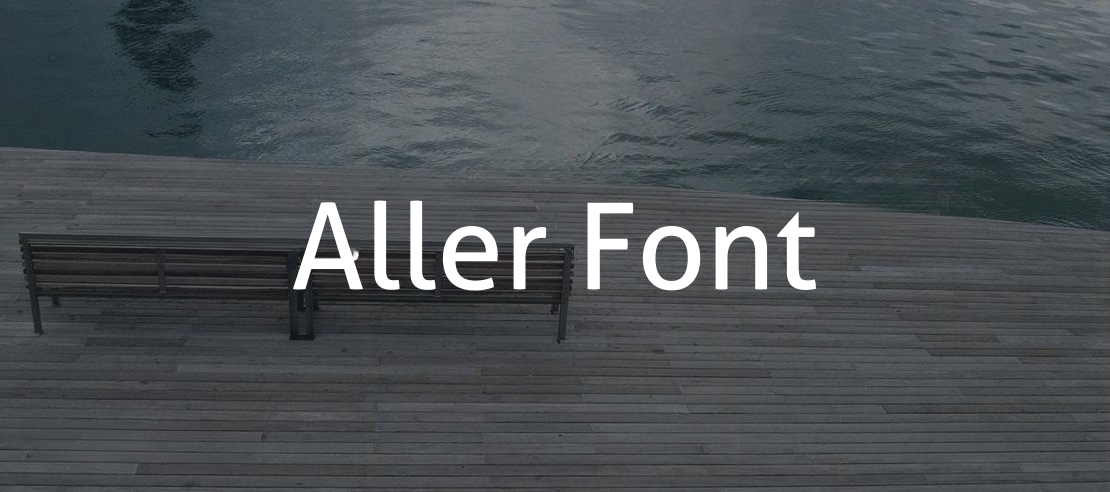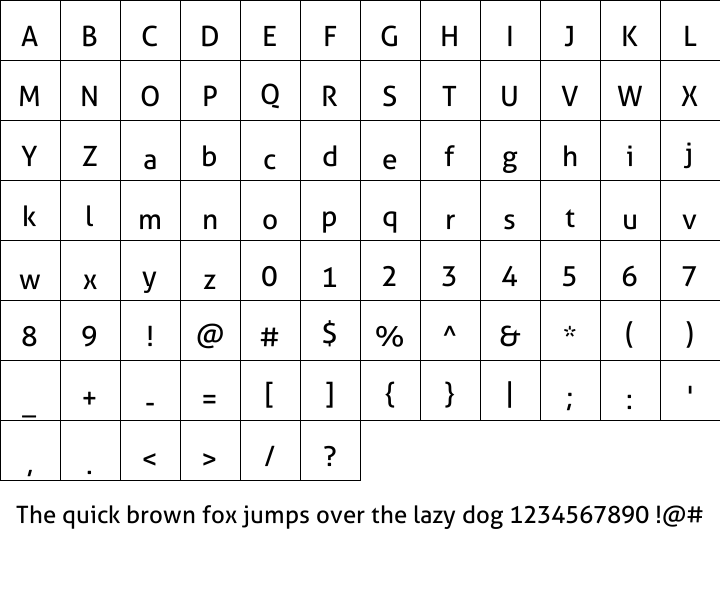
Aller Font is a member of the sans-serif typeface designed by Danish designer Dalton Maag. This typeface family includes three different fonts ranging from light to bold in weight, each with an italic version.
It is a versatile typeface that can be used for both body text and headlines. The most alternative and the pairing typeface to this texture is Work Sans font.
Dalton Maag originally designed it in 1997 for the Danish newspaper Politiken. It was later released commercially in 2002 and has since become one of the most popular sans-serif typefaces used today.
This typeface is known for its clean, simple lines and its readability. It is a versatile typeface that can be used for both body text and headlines.
It is also available in a wide range of weights, making it a versatile choice for both web and print design. You can use this typeface in any of your print and media projects design.
Designer of Aller Font
This outstanding style of adobe font is designed by a famous graphic designer, which is known, as Dalton Maag.
All these styles consist of glyphs, digits, capital letters, small letters, punctuation, a set of characters, and a wide range of language support.
View of Aller Font
| Name | Aller Font |
| Designer | Dalton Maag |
What font is Aller Font?
This is a member of the sans-serif typeface designed by Danish designer Dalton Maag. The Aller font family includes three different fonts ranging from light to bold in weight, each with an italic version.
What font goes with Aller Font?
There are so many fonts to get a match this font but, the most pairing and similar font is to this typeface is Average Font.
Who created the Aller Font?
This outstanding style of adobe font is designed by a famous graphic designer, which is known, as Dalton Maag.